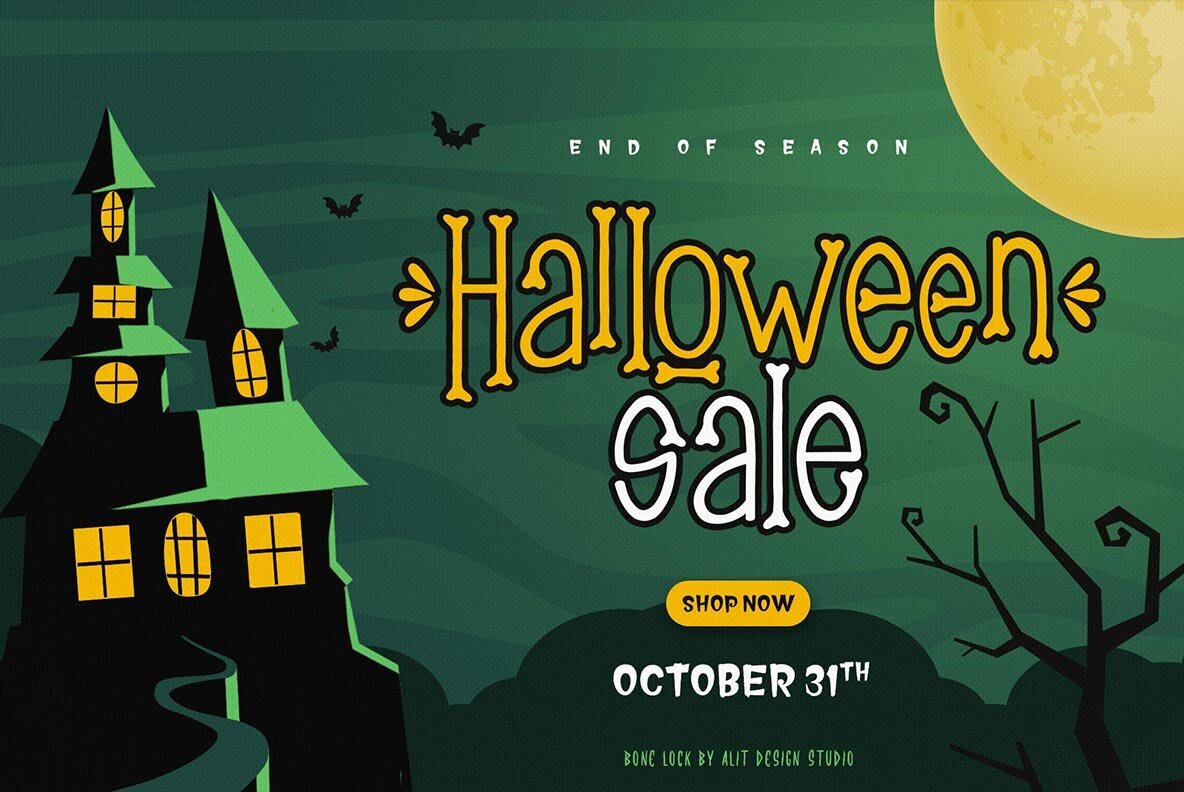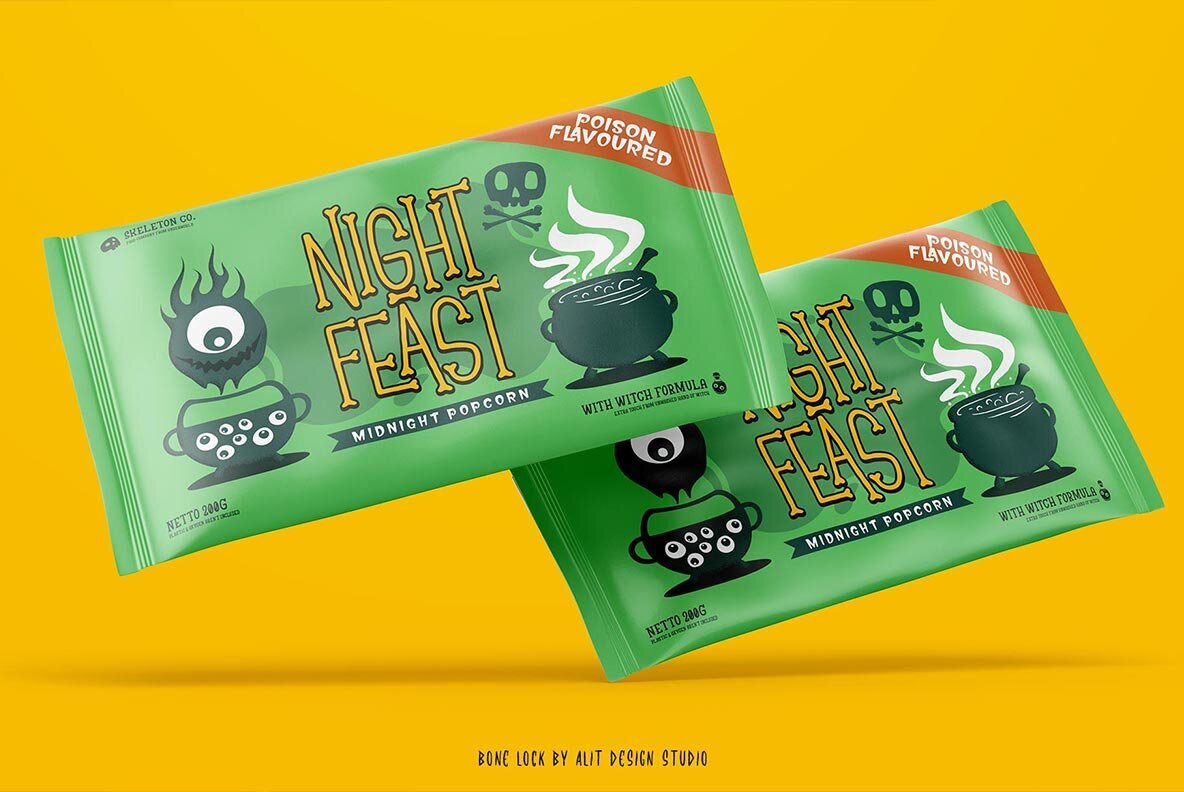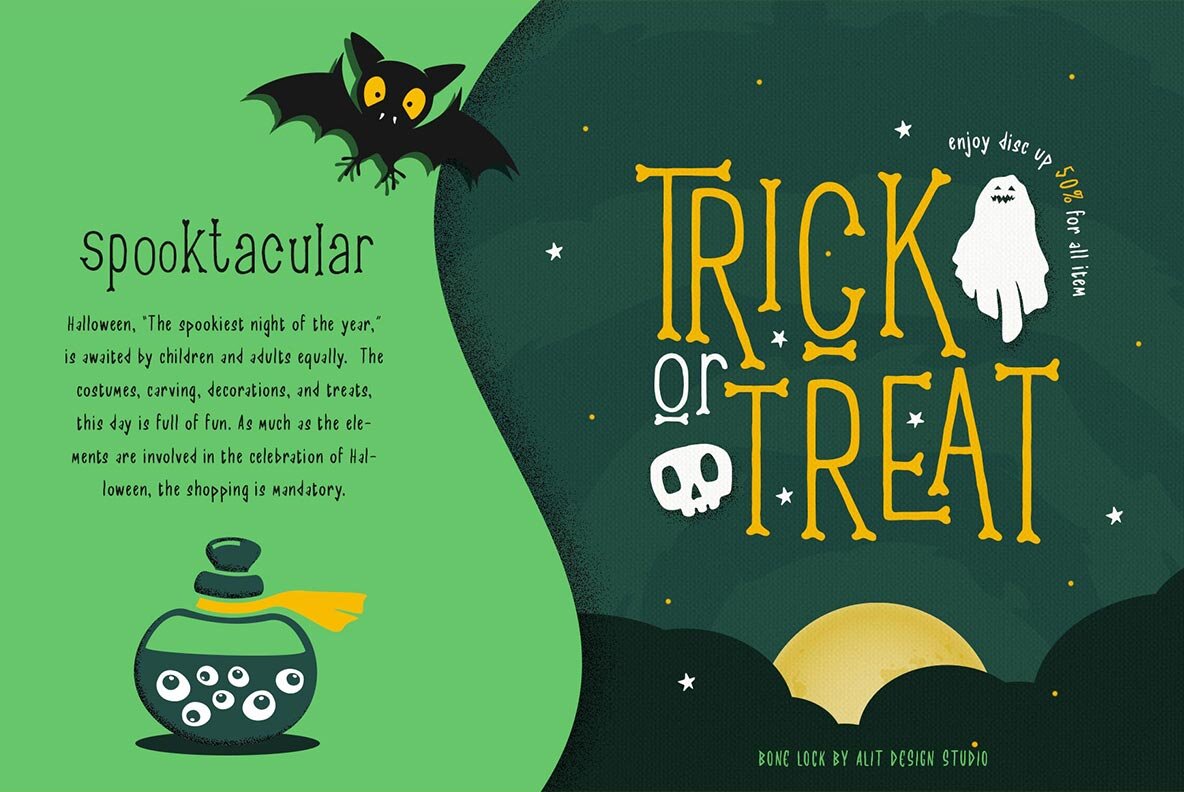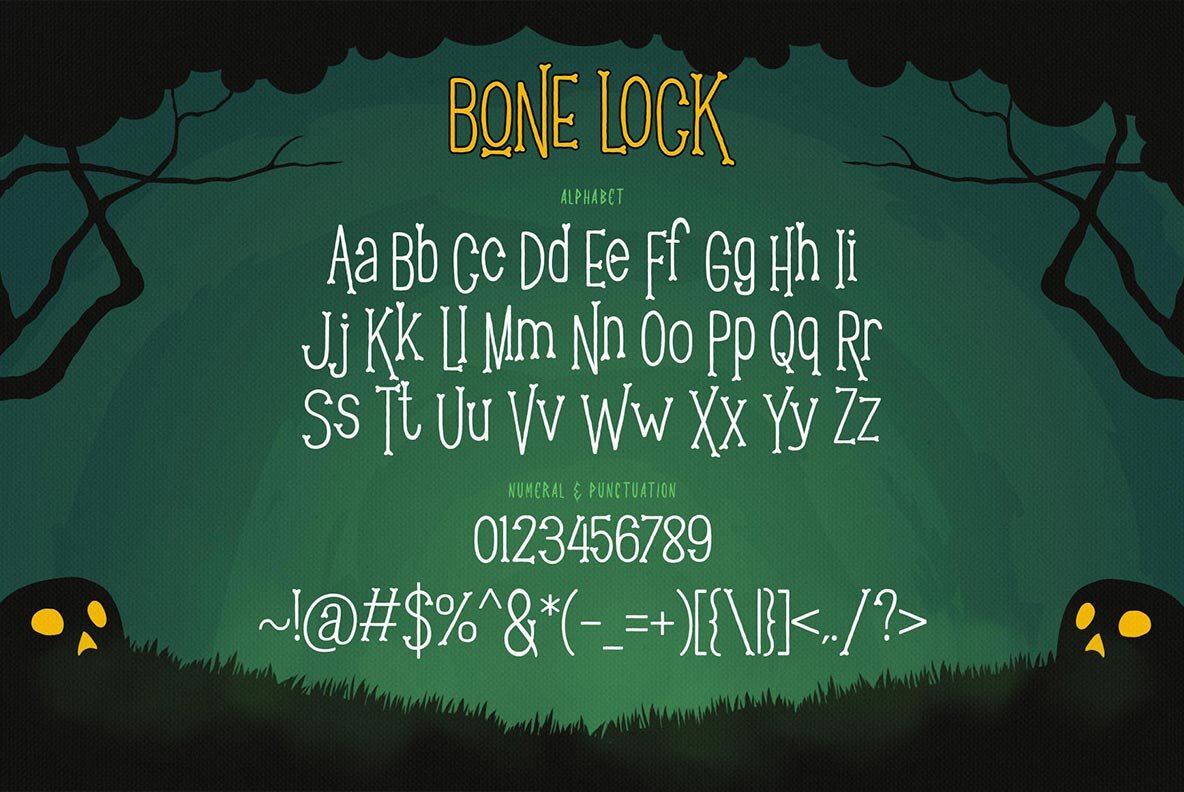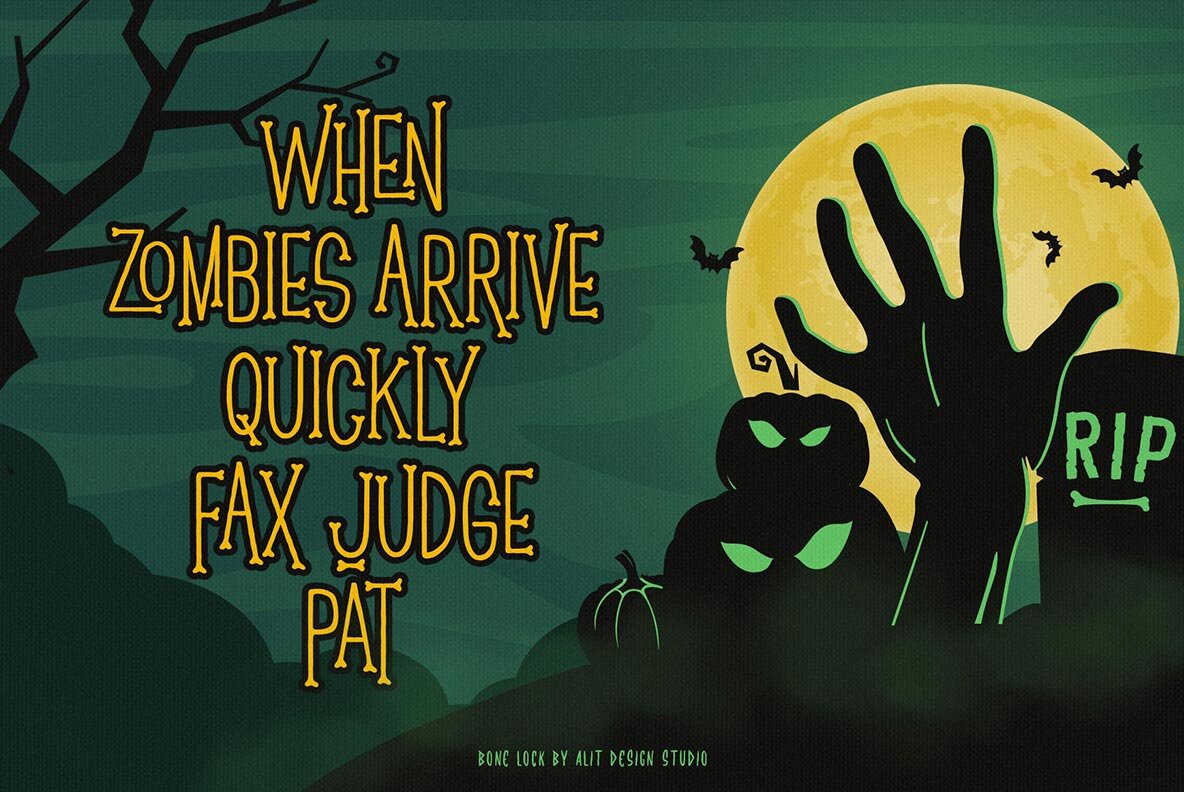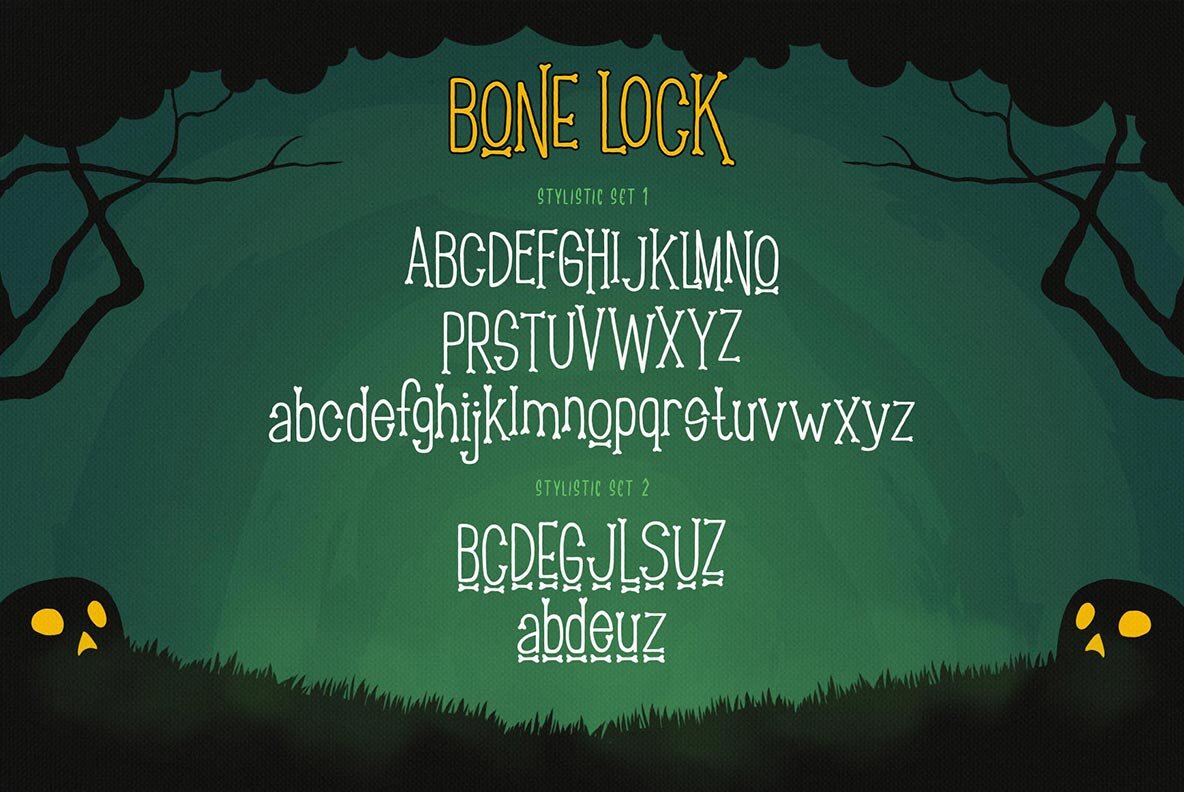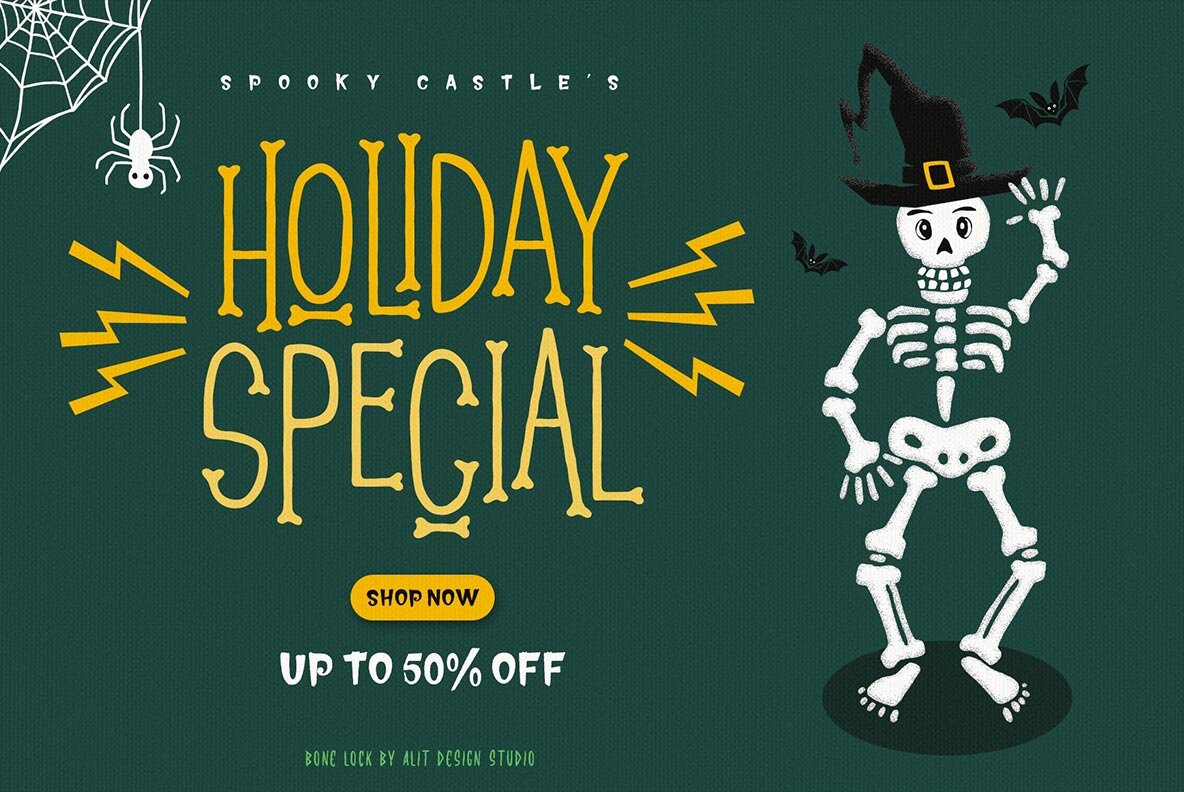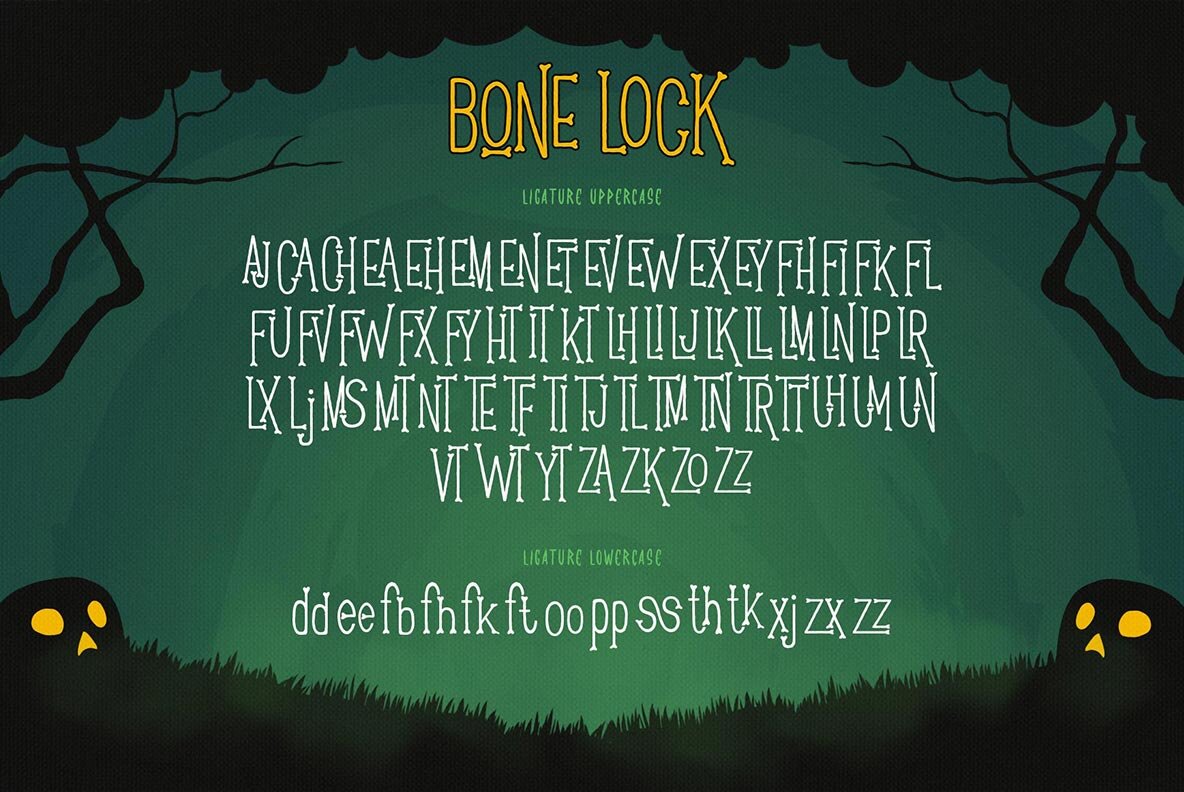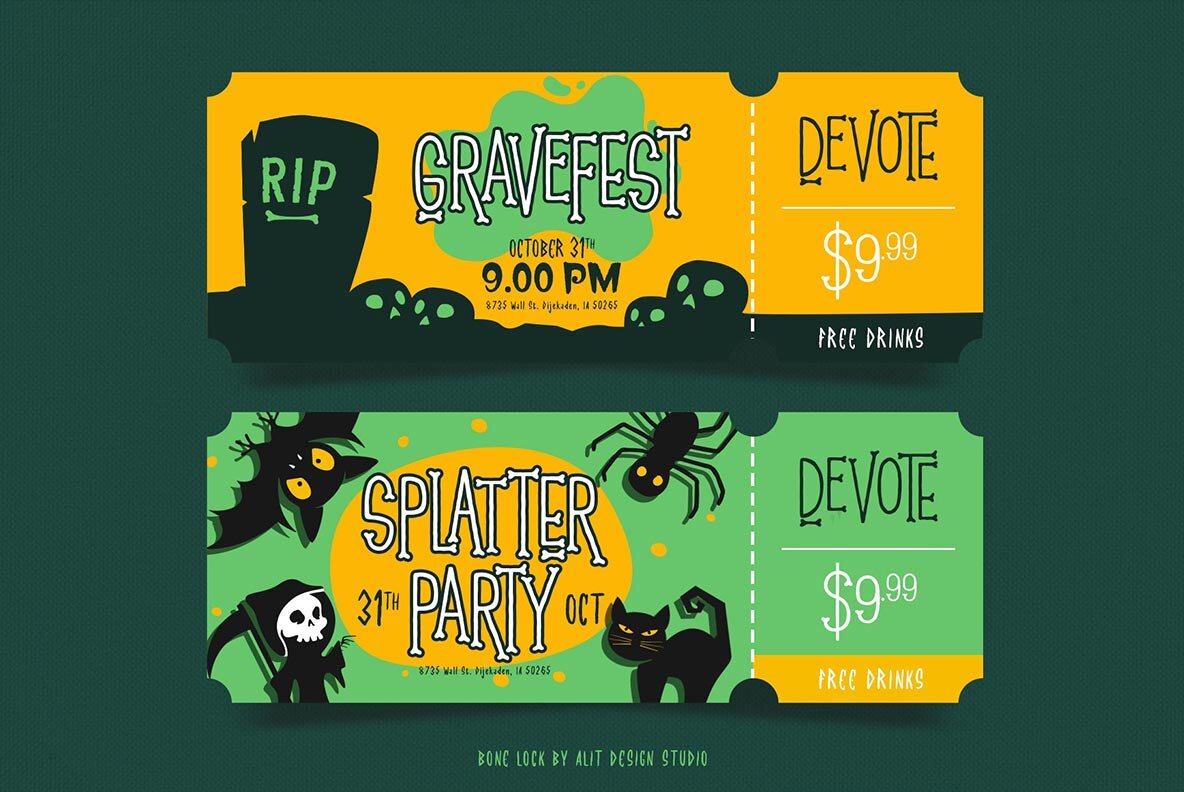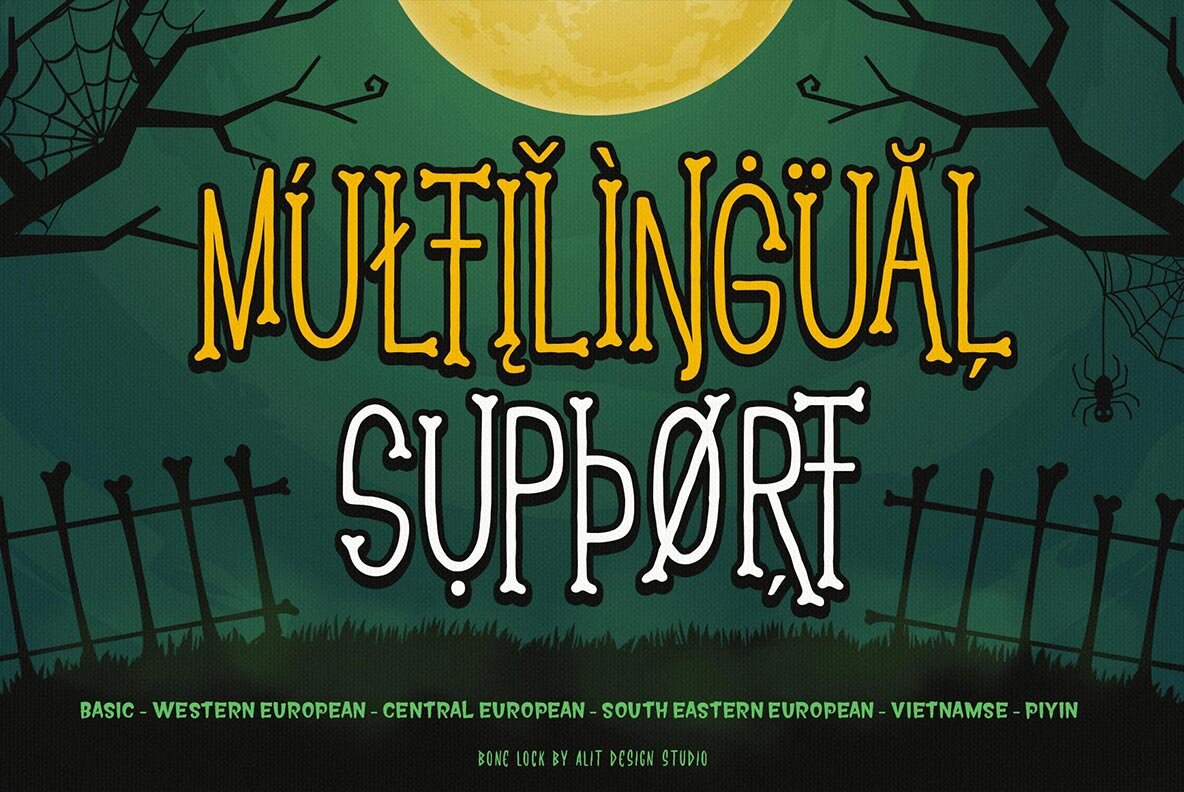
Bone Lock Font
Bone Lock brings an expressive and creative flair to any design project. Ideal for designers who appreciate strong visual impact, this typeface is characterized by its dynamic form and captivating presence. Whether you're working on digital advertisements or print media, Bone Lock ensures your message makes a statement.Bone Lock: Embrace the Bold and Engaging Typeface